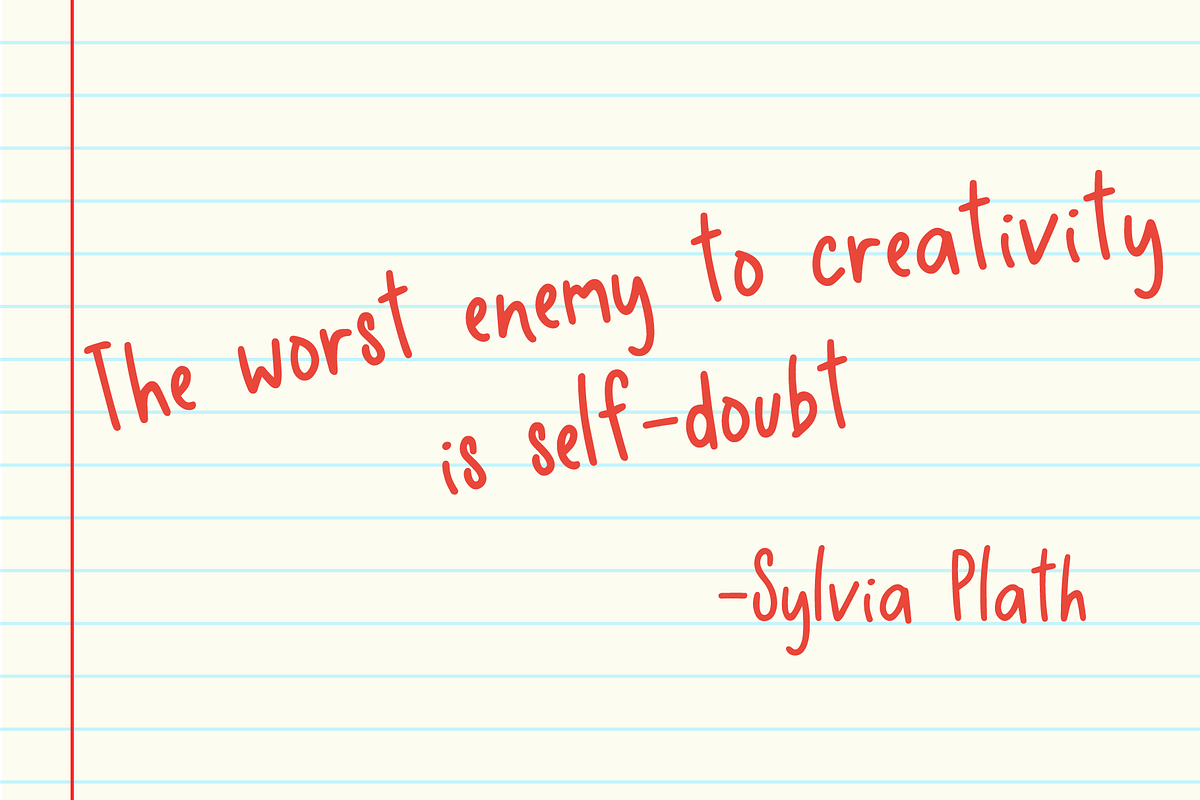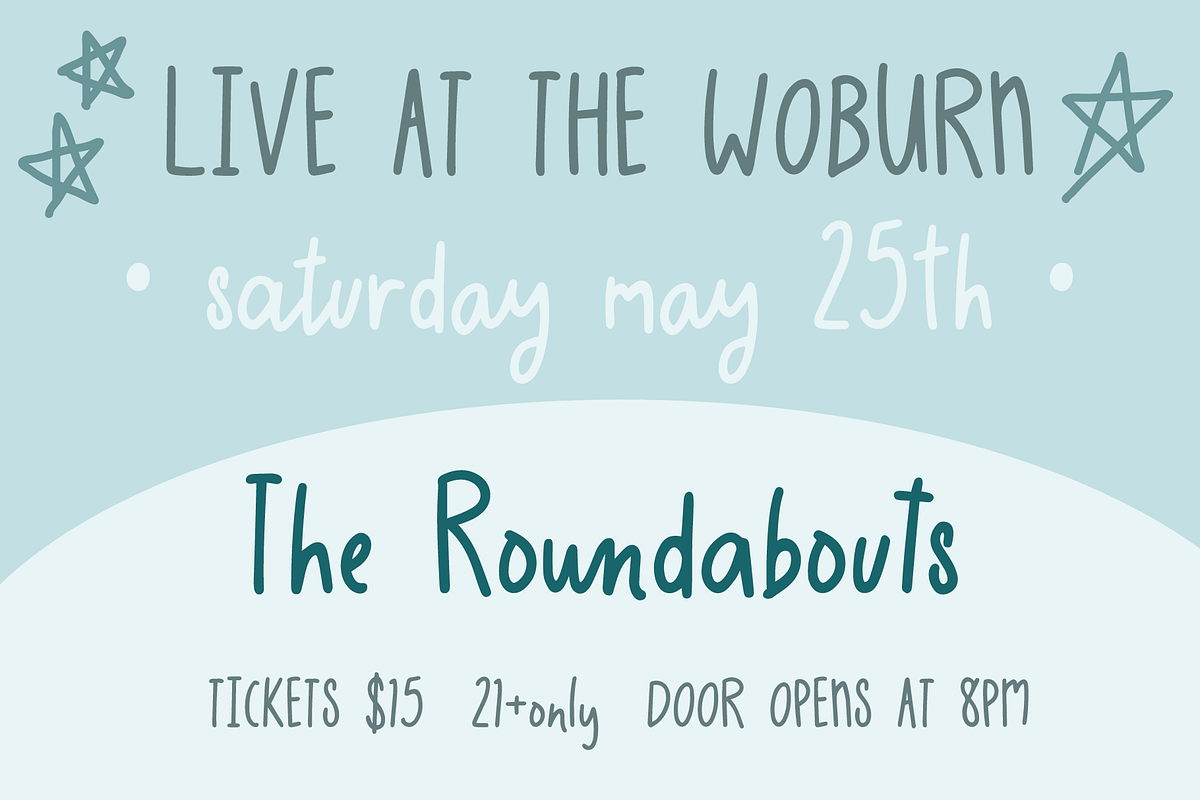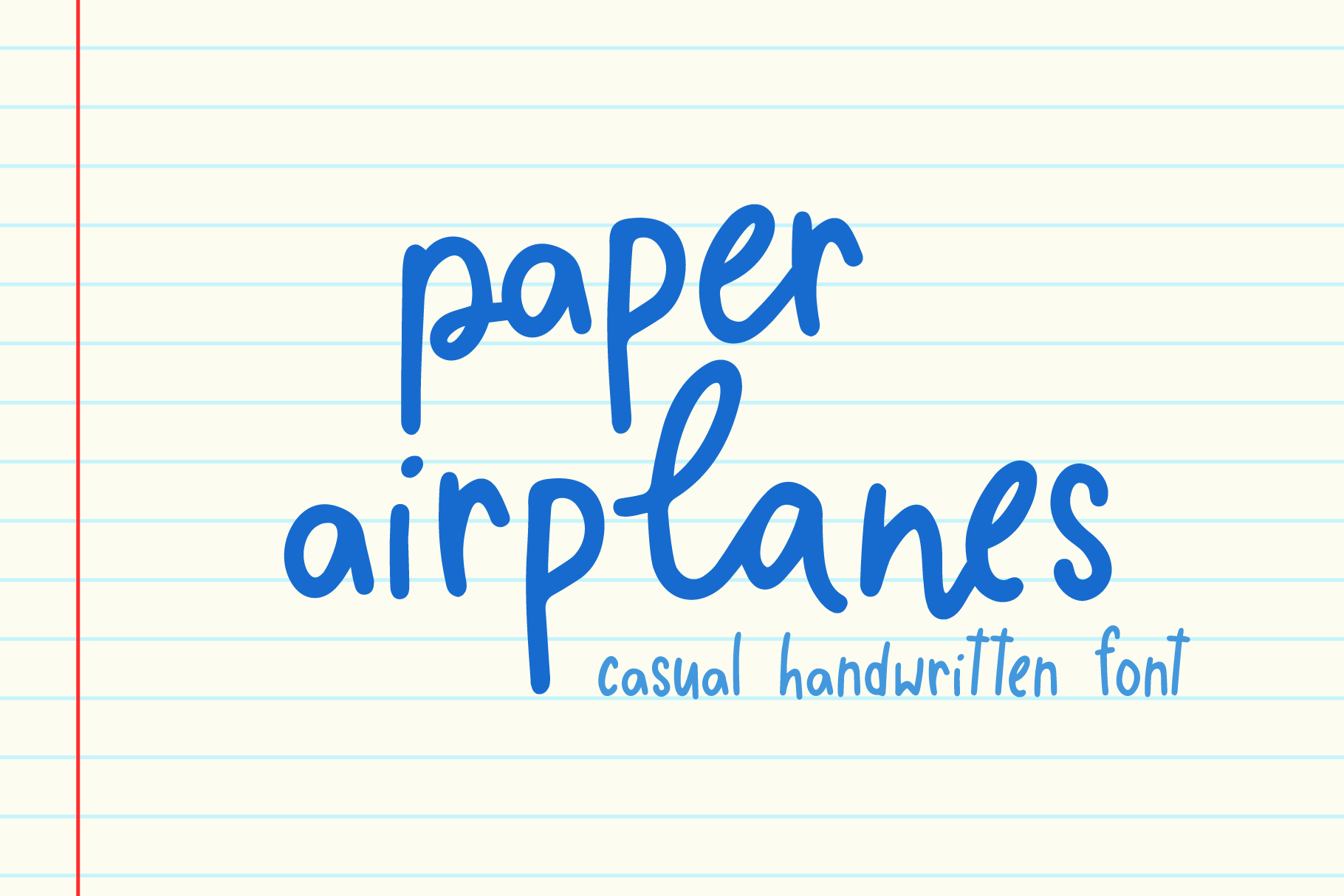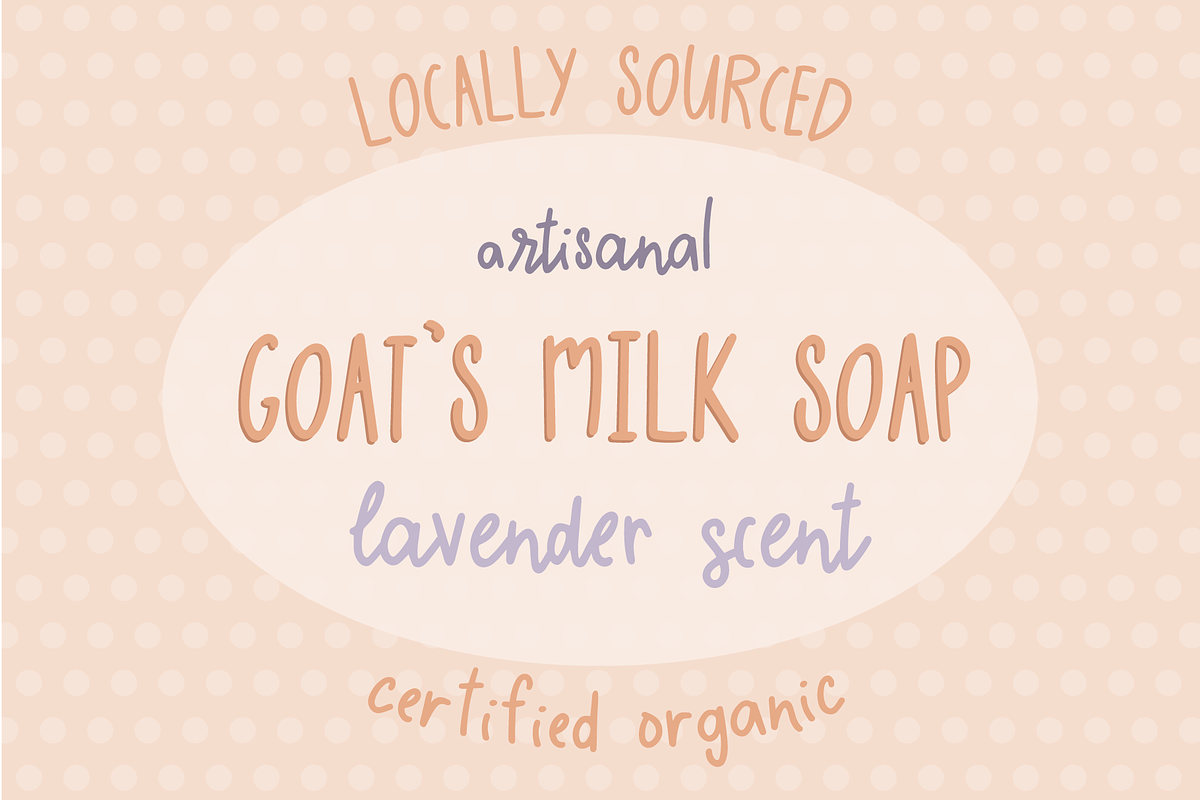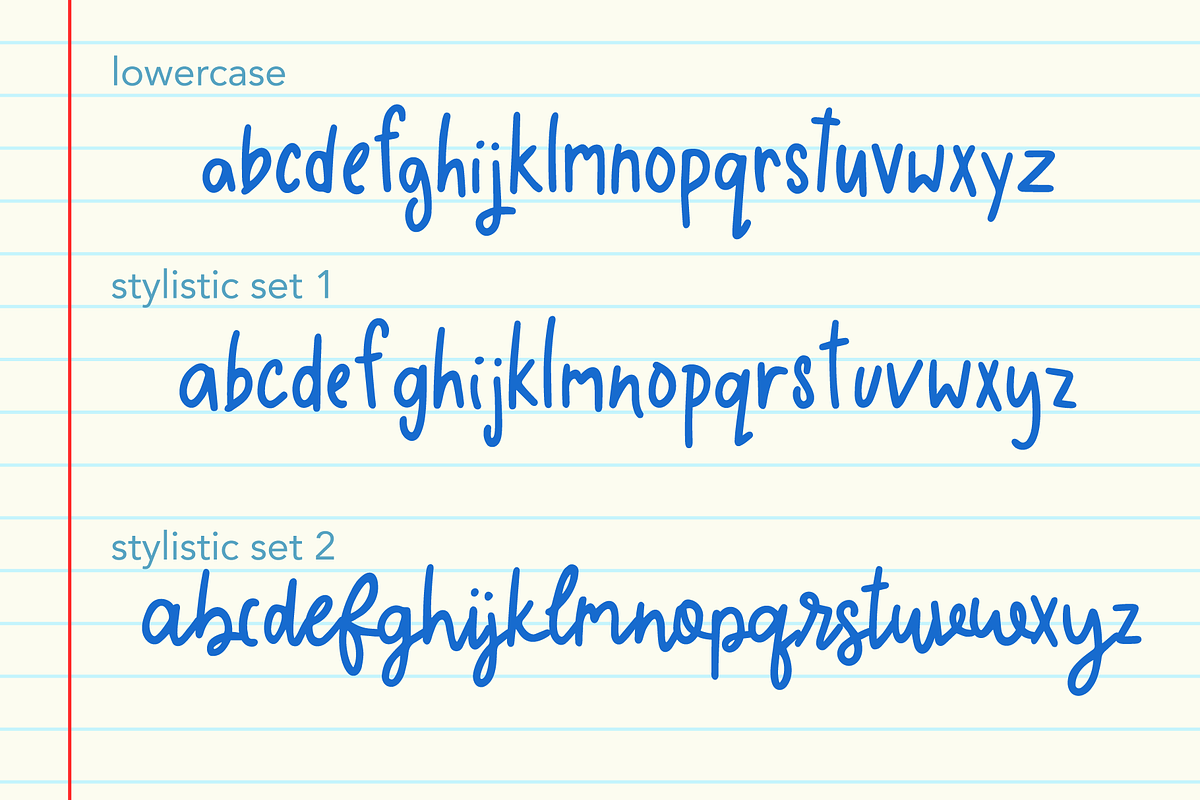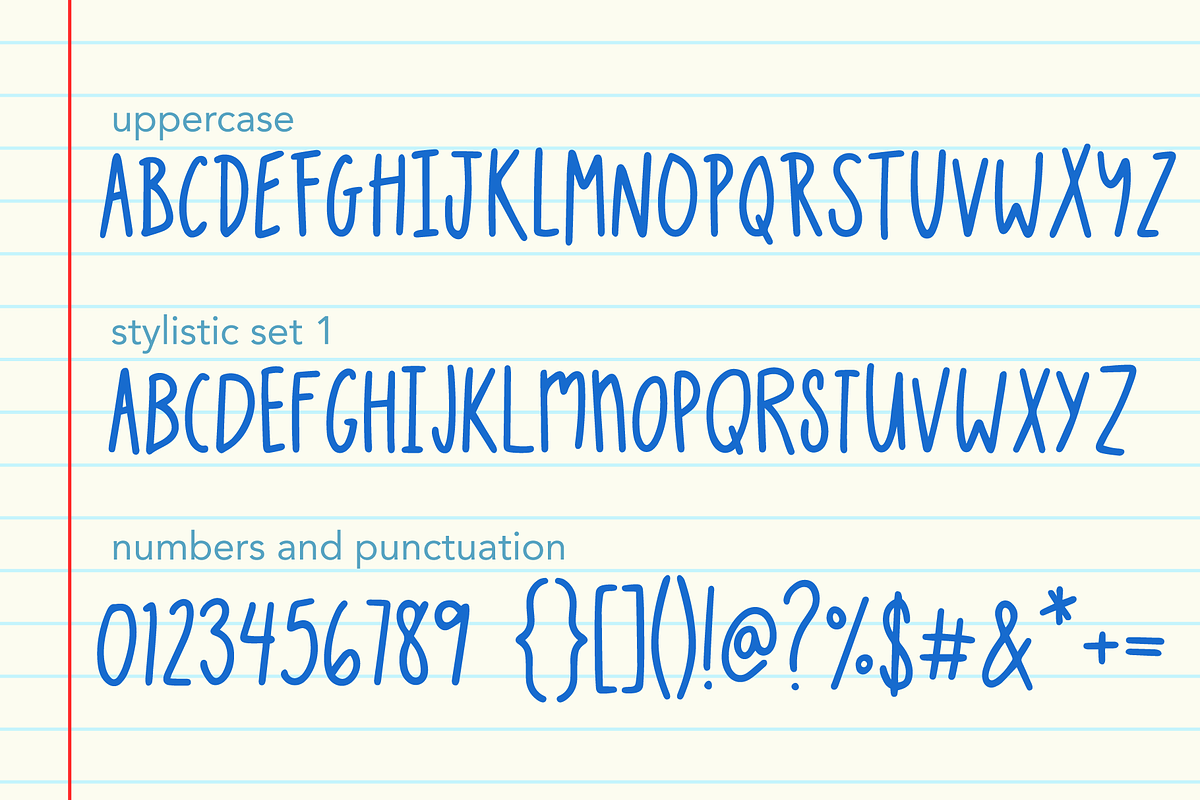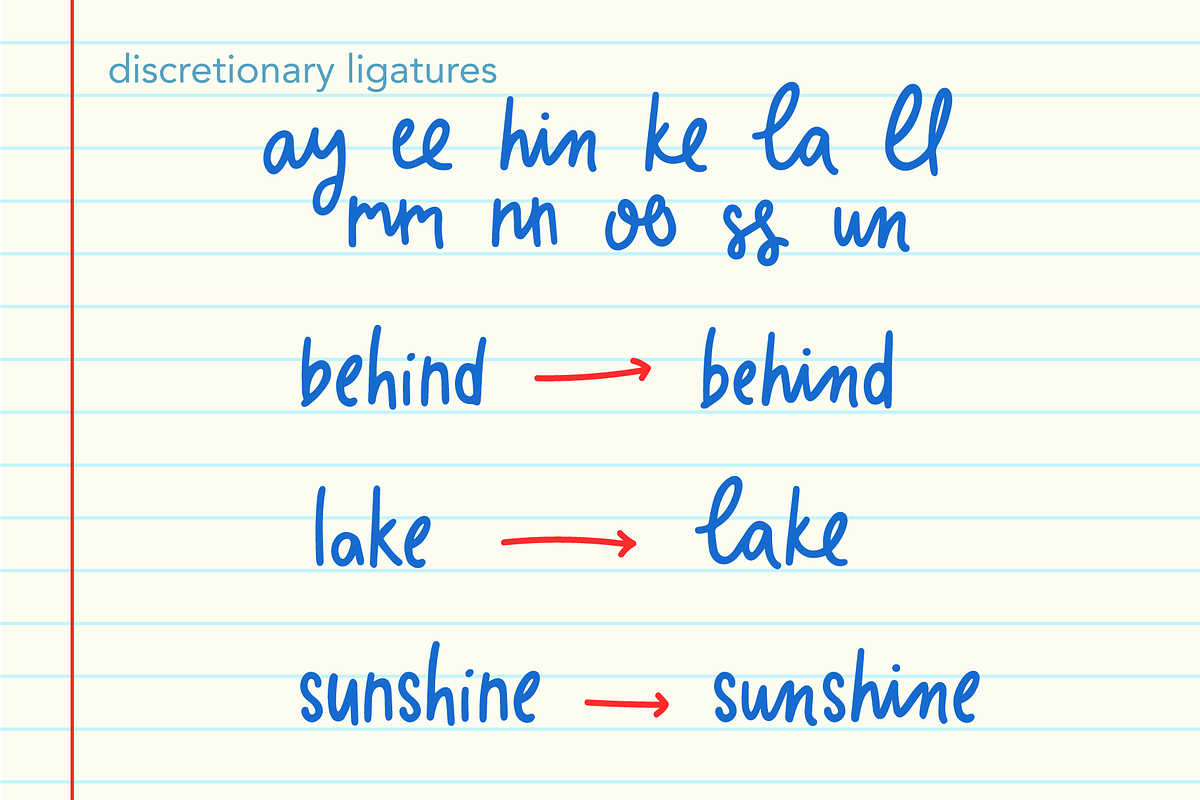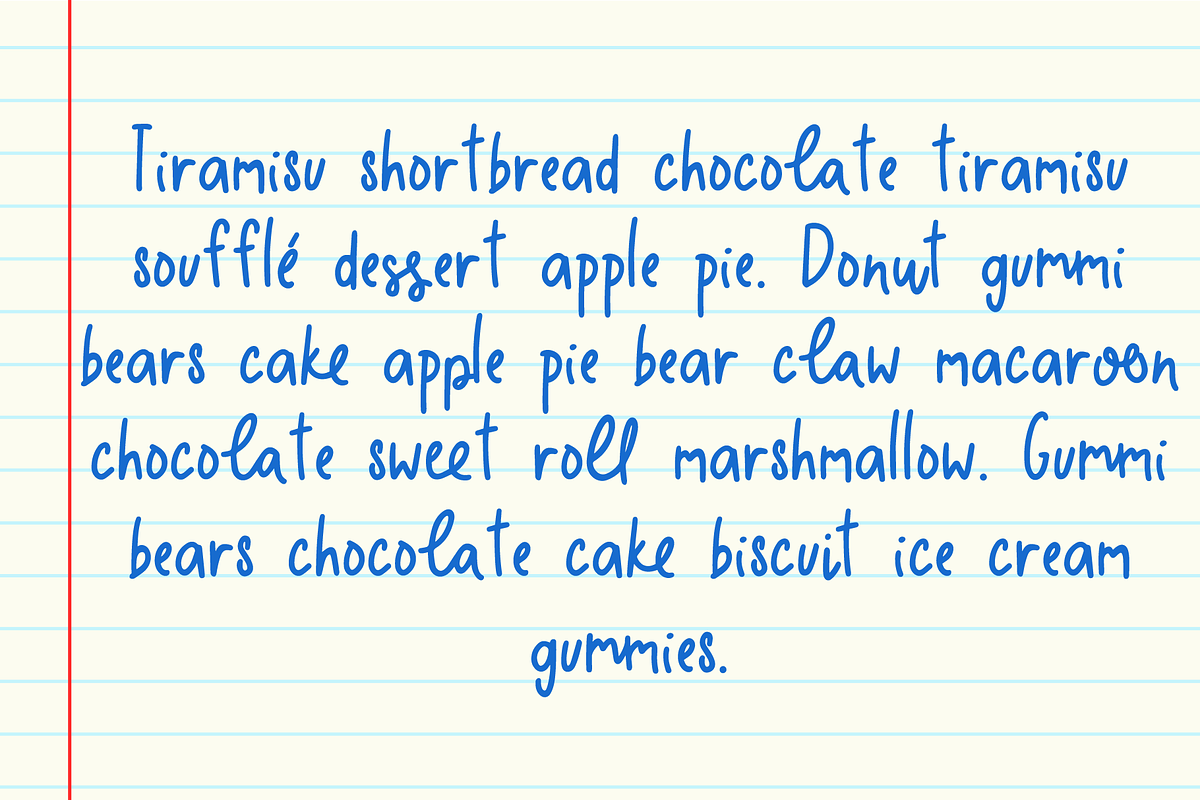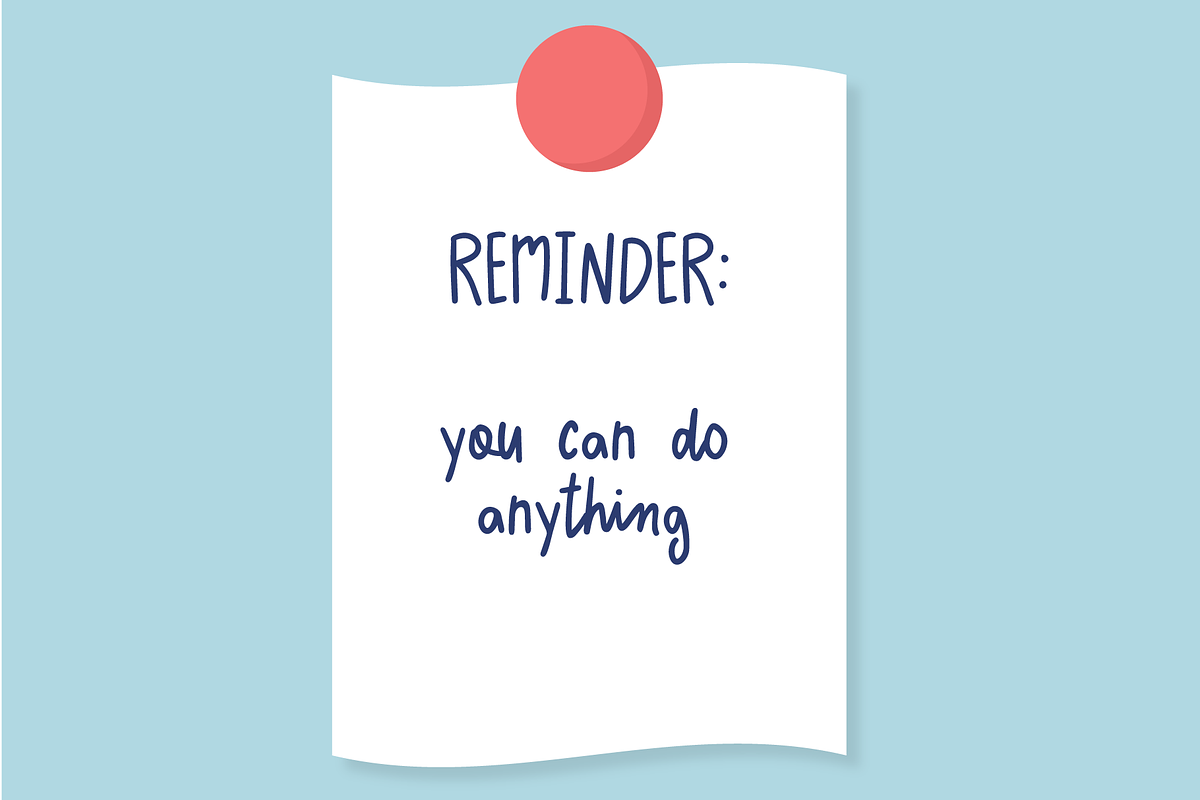
Paper Airplanes Handwritten Font
Paper Airplanes is inspired by back-of-the-classroom doodles and thick colorful markers. It is a laid back handwritten font with lots of stylistic alternates for that fully hand-made look.
Paper Airplanes is perfect for posters, greeting cards, packaging, and anything that needs an easy and casual handwritten touch.